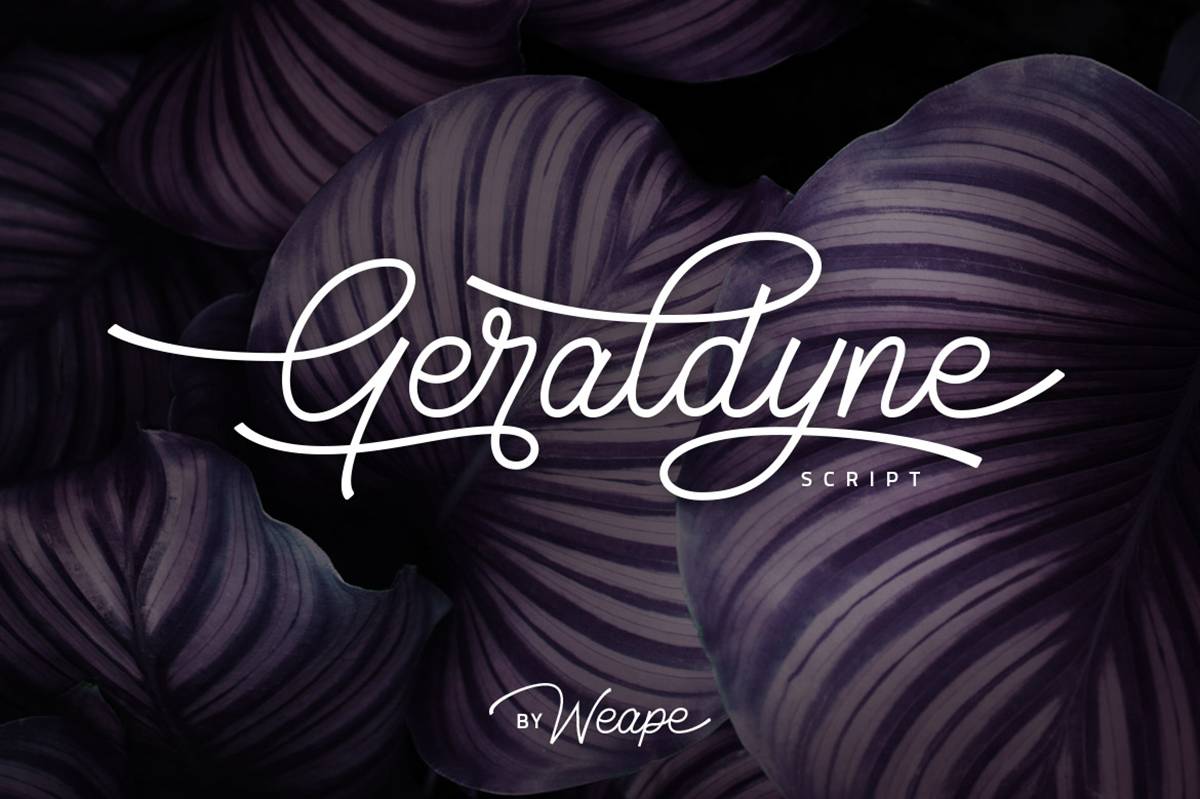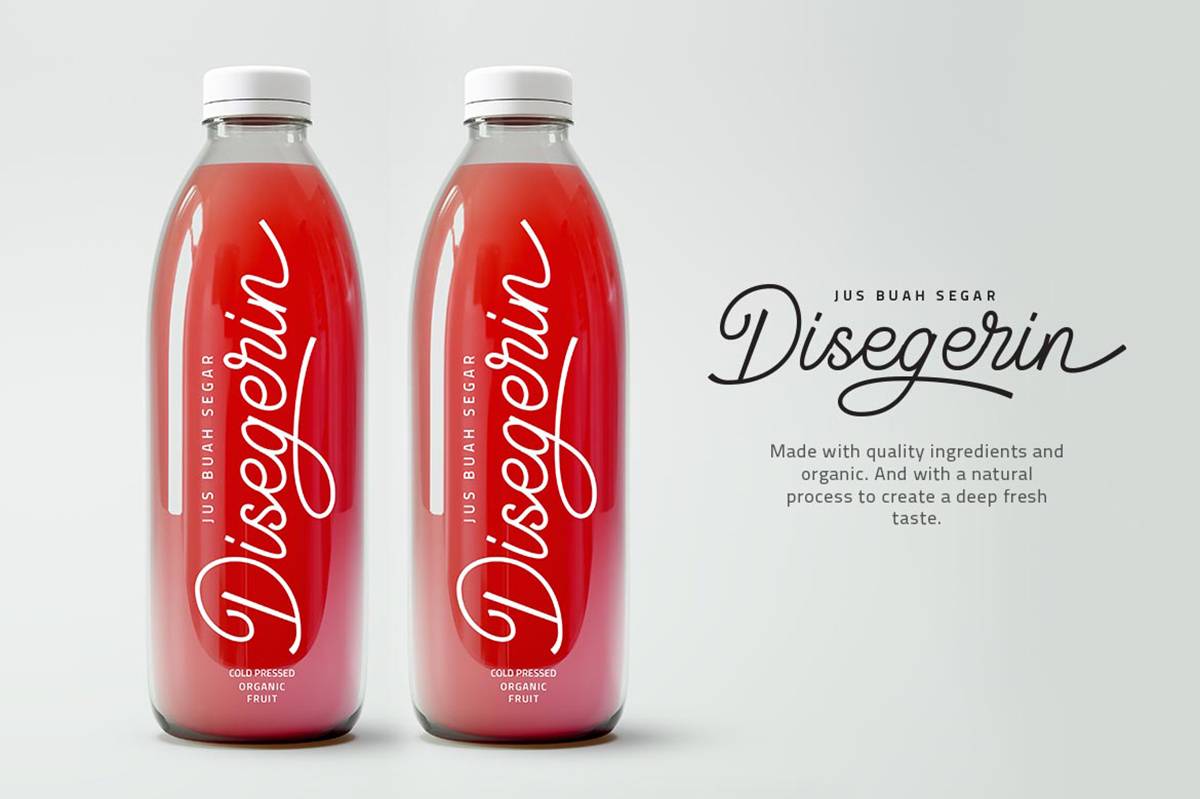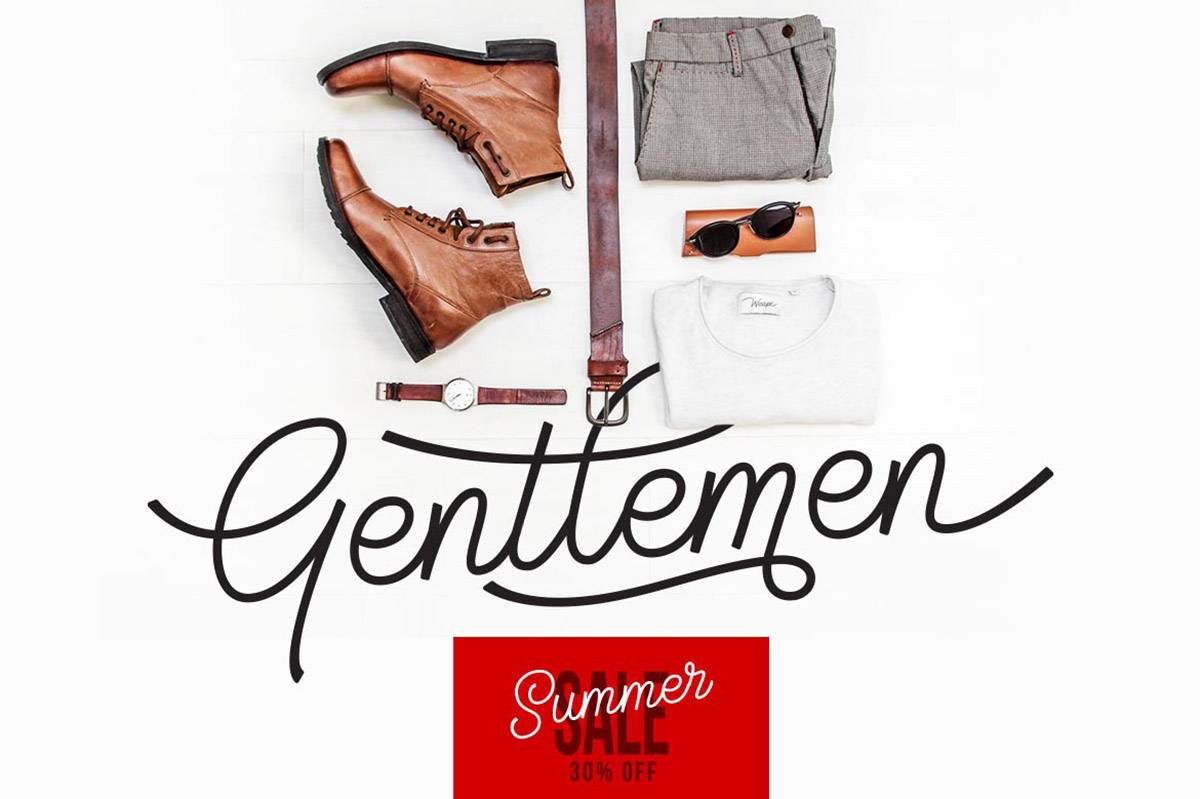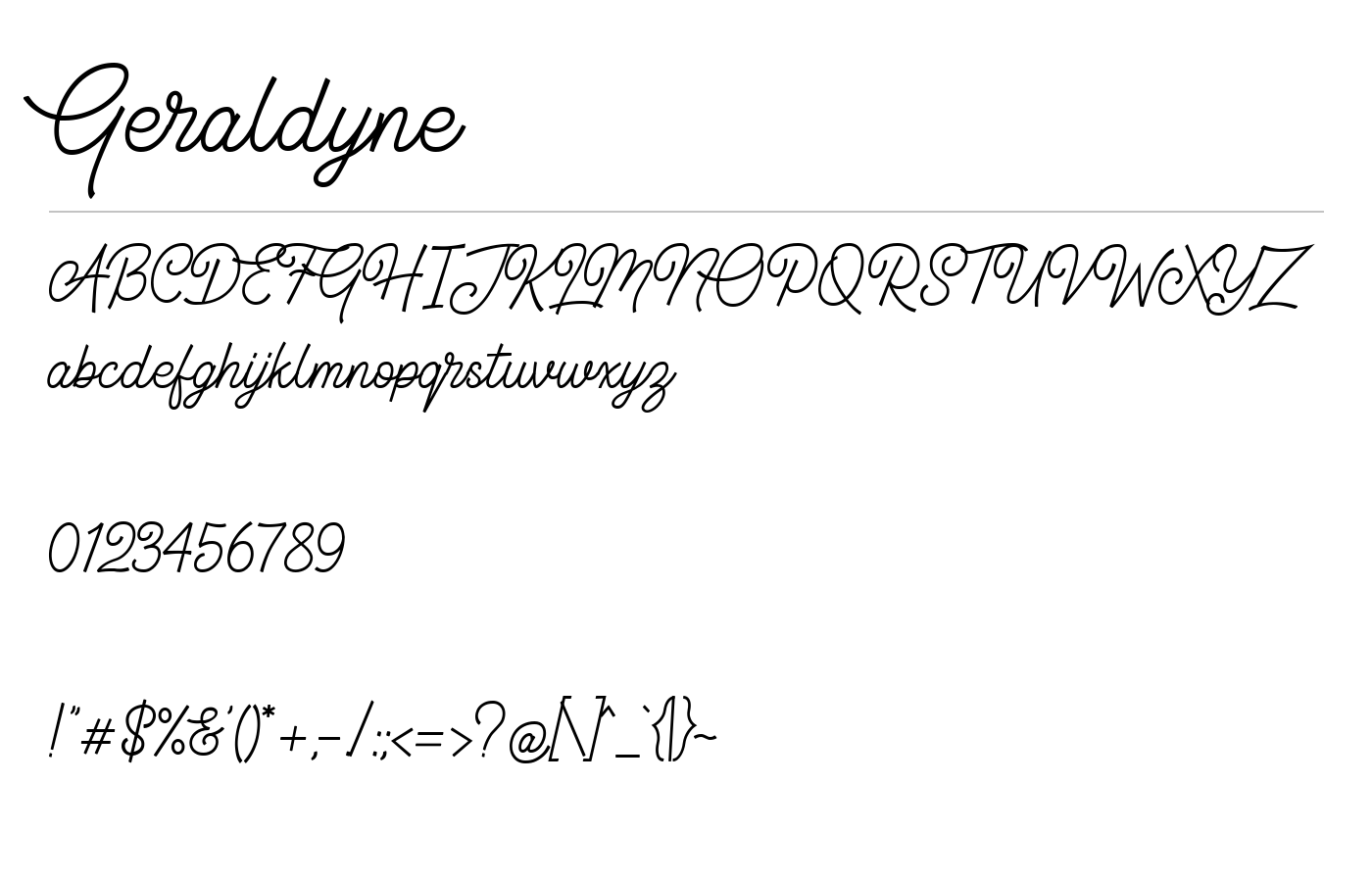
Geraldyne is a delicate and elegant script font featuring slender, flowing letterforms with a graceful, handcrafted feel. Its light weight and smooth, connected strokes make it perfect for adding a sophisticated and personal touch to wedding invitations, branding, and feminine designs. This font works best in display uses where a stylish, refined, and approachable look is desired.
Geraldyne Font
About Geraldyne Font
| Font family | Geraldyne Font |
| Release date | 2018-06-09 |
| Designer | Weape Studio |